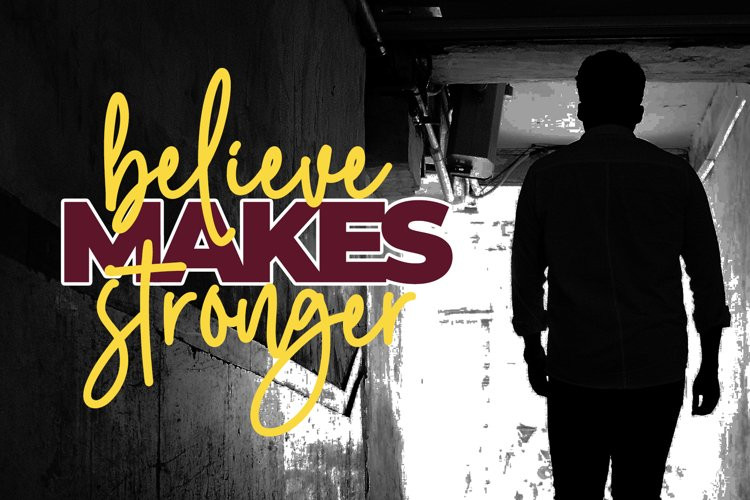
Allnight Font
Allnight FontAllnight is modern casual handwritten font. It is elegant and classy within casuality.
Allnight monoline font is perfect for any projects, such as wedding invitation, signature, branding, crafting, sticker, sublimation, farmhouse label, and many more.